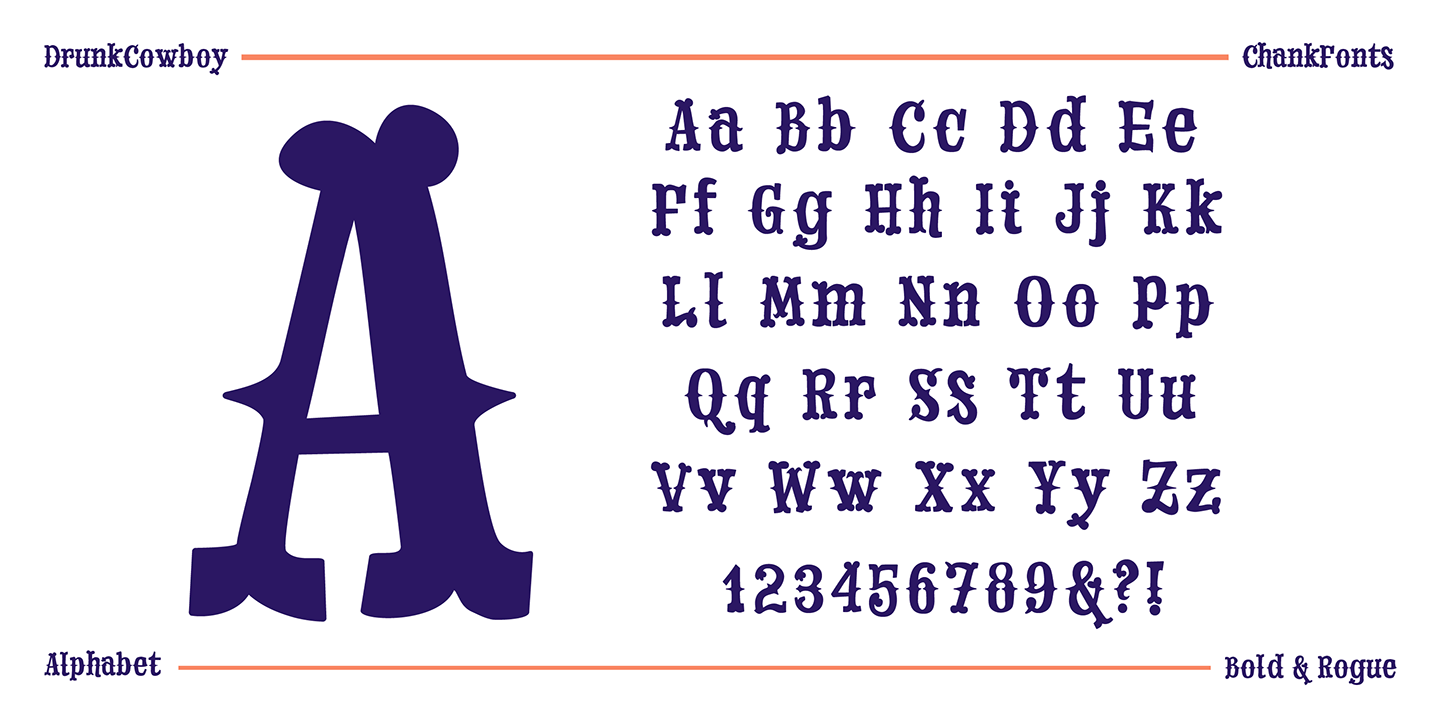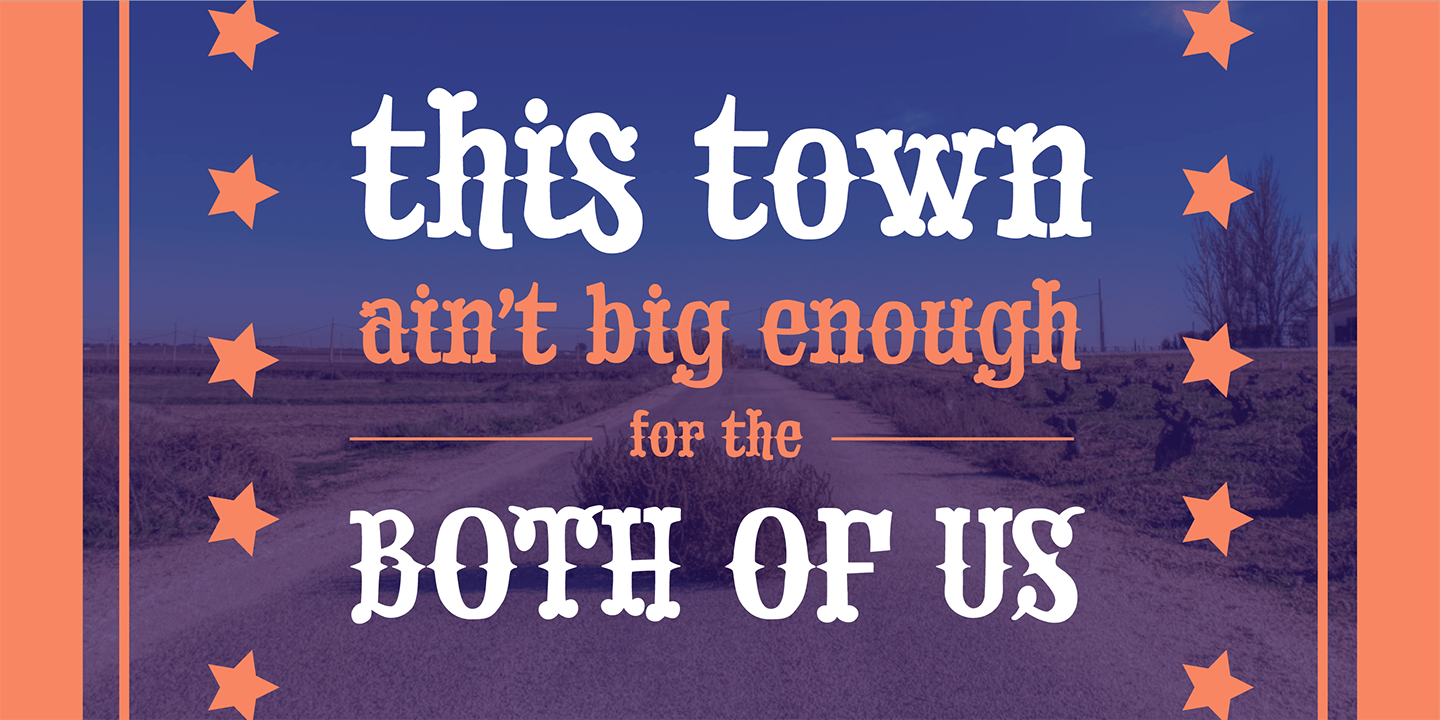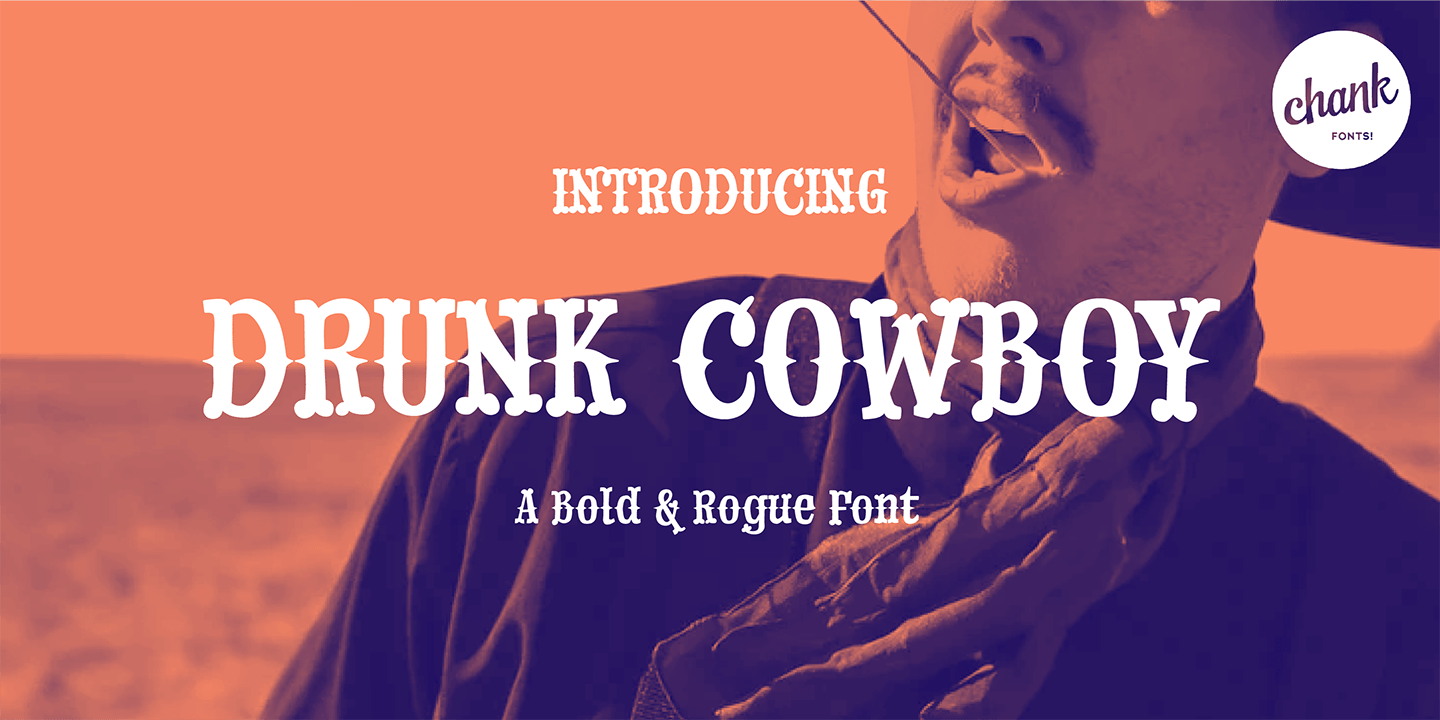
Drunk Cowboy
About Drunk Cowboy
Drunk Cowboy is a bouncy version of the popular Old West type style, inspired by hand-made signage in Paducah, Kentucky. The strokes are loopy and loose. The exaggerated terminals give this font a loud, boisterous presence. Drunk Cowboy is a brutish rogue…